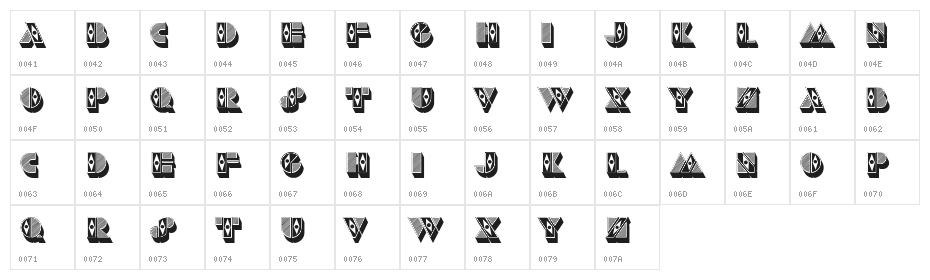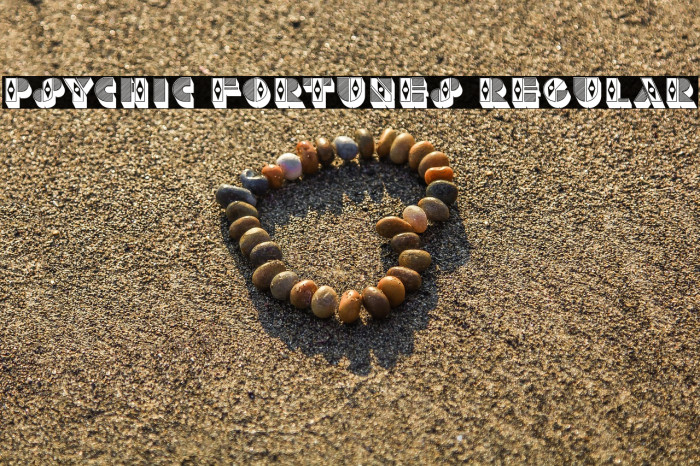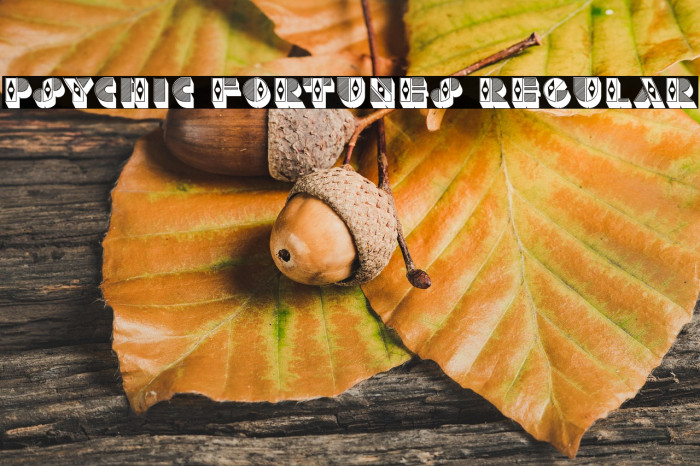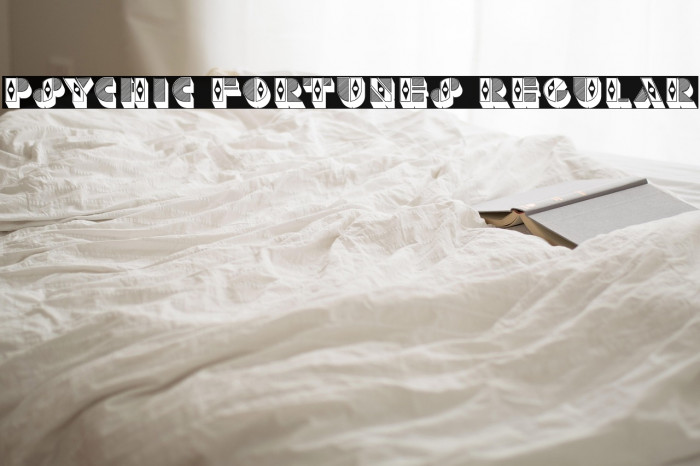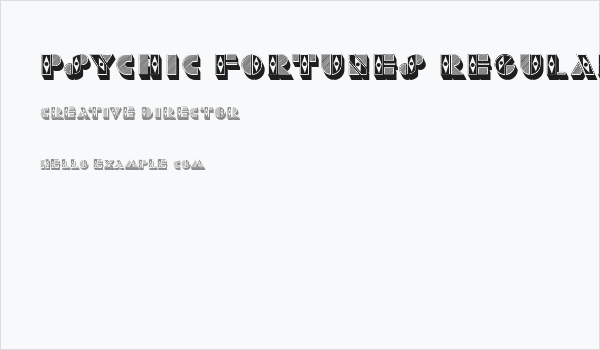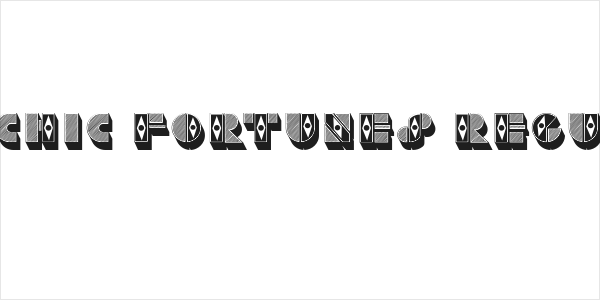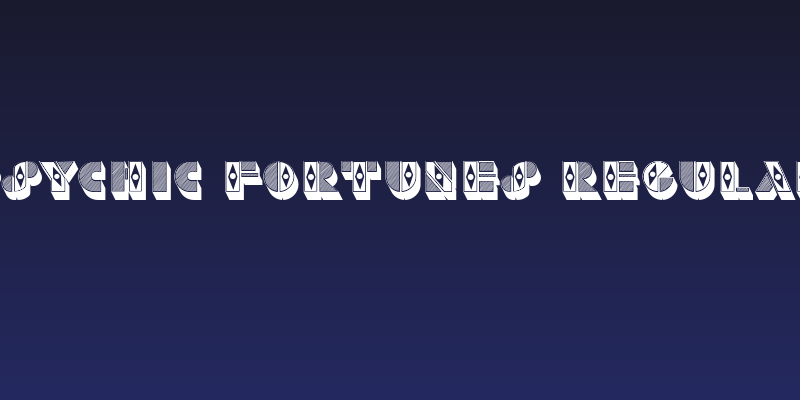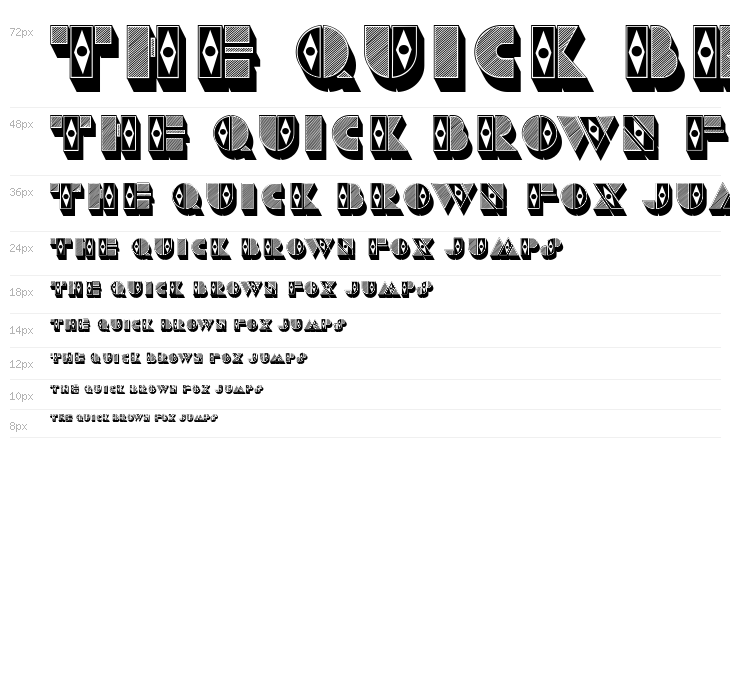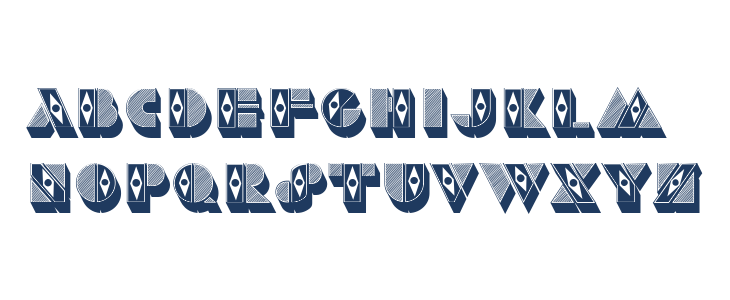
Psychic Fortunes Regular Font
Psychic Fortunes Regular Description
This font features a bold and decorative style with a unique geometric design. Each character is adorned with intricate patterns and shapes, creating a visually striking effect. The letters are three-dimensional, with a shadow effect that adds depth and dimension. The use of contrasting colors and textures within each character enhances its eye-catching appearance. This font is perfect for projects that require a bold and artistic touch, making it ideal for creative and expressive designs.
| Proposed Projects | Ideal for posters, album covers, branding, and any project needing a bold, artistic flair. |